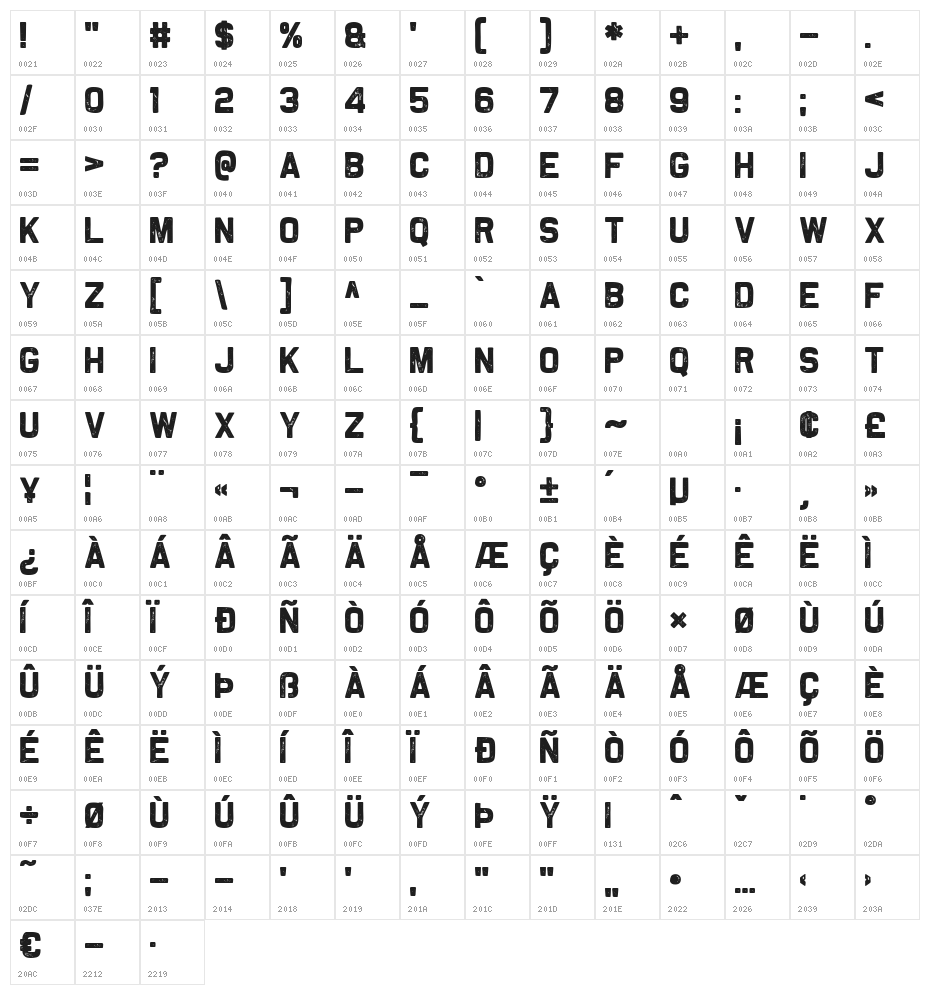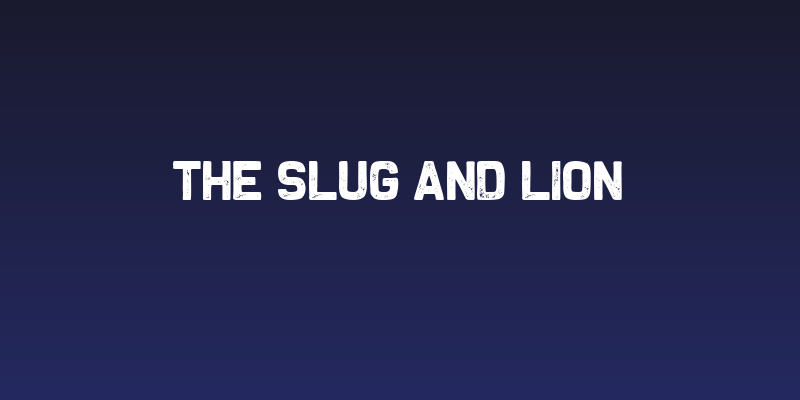
The Slug and Lion Font
The Slug and Lion Description
This font features a bold, distressed style with a rugged, textured appearance. The characters are uppercase and numerals, with a consistent, blocky structure that conveys strength and impact. The distressed effect gives it a vintage, worn look, adding character and a sense of history. The font's boldness makes it stand out, while the rough texture adds a unique, artistic flair. It's perfect for projects that require a strong, eye-catching typeface with a touch of nostalgia. The spacing between characters is normal, ensuring readability while maintaining its bold presence.
| Proposed Projects | Ideal for posters, logos, branding, and any design needing a bold, vintage aesthetic. |